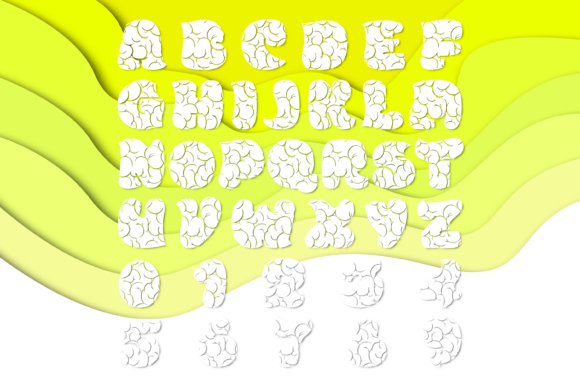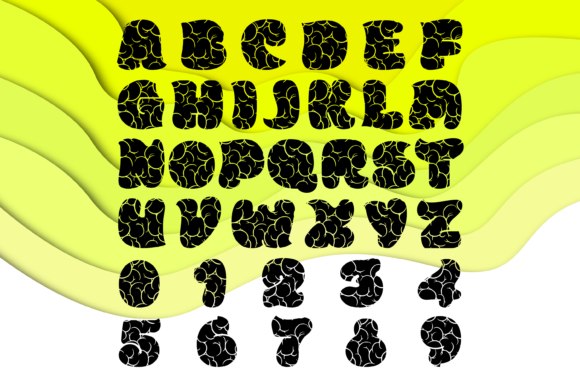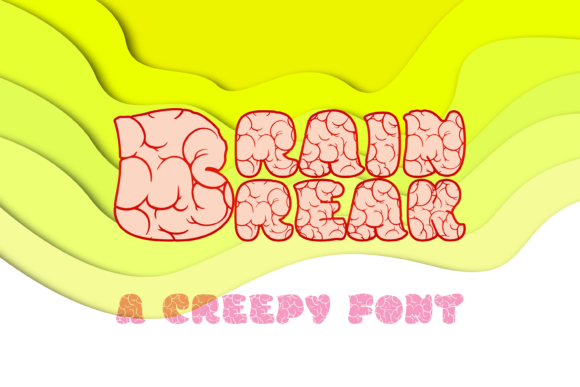
Brain Break Font: The Ultimate Addition to Your Halloween Designs
Are you looking for a way to make your Halloween designs stand out from the crowd? Look no further than the Brain Break Font, an incredibly cool and spooky decorative font that’s sure to add a touch of eeriness to any project. In this article, we’ll dive into the world of Brain Break Font and explore its features, benefits, and uses, as well as provide tips and inspiration for designers and crafters.
What is Brain Break Font?
Brain Break Font is a unique and eye-catching decorative font that’s perfect for Halloween-themed designs. Its spooky and playful style is sure to grab attention and add a touch of personality to any project. Whether you’re creating invitations, posters, or social media graphics, Brain Break Font is the perfect addition to make your designs stand out.
Features of Brain Break Font
Brain Break Font boasts a range of features that make it a must-have for designers and crafters. Some of its key features include:
- Unique and eye-catching design: Brain Break Font has a distinctive and quirky style that’s sure to grab attention.
- Spooky and playful style: Perfect for Halloween-themed designs, Brain Break Font adds a touch of eeriness and whimsy to any project.
- High-quality design: Brain Break Font is designed with high-quality graphics, ensuring that it looks great even at large sizes.
Benefits of Using Brain Break Font
So why should you use Brain Break Font in your designs? Here are just a few benefits:
- Adds a touch of personality: Brain Break Font is a unique and eye-catching font that adds a touch of personality to any project.
- Perfect for Halloween-themed designs: Brain Break Font is specifically designed for Halloween-themed designs, making it a must-have for any designer or crafter working on spooky projects.
- Increases engagement: The spooky and playful style of Brain Break Font is sure to grab attention and increase engagement with your audience.
- Easy to pair with other fonts: Brain Break Font is easy to pair with other fonts, making it versatile and easy to use in a range of design projects.
Using Brain Break Font in Your Designs
So how can you use Brain Break Font in your designs? Here are a few ideas to get you started:
- Halloween invitations: Add Brain Break Font to your Halloween invitations for a spooky and playful touch.
- Social media graphics: Use Brain Break Font to create eye-catching social media graphics that are sure to grab attention.
- Posters and flyers: Add Brain Break Font to your posters and flyers for a unique and eye-catching design.
- Craft projects: Brain Break Font is perfect for craft projects, such as making spooky signs or decorations.
Tips for Using Brain Break Font
Here are a few tips for using Brain Break Font in your designs:
- Use it sparingly: Brain Break Font is a bold and eye-catching font, so use it sparingly to avoid overwhelming your design.
- Pair it with other fonts: Brain Break Font is easy to pair with other fonts, so experiment with different combinations to find the perfect look for your design.
- Experiment with colors: Brain Break Font looks great in a range of colors, so experiment with different colors to find the perfect look for your design.
Inspiration for Using Brain Break Font
Need some inspiration for using Brain Break Font in your designs? Here are a few ideas to get you started:
- Create a spooky Halloween scene: Use Brain Break Font to create a spooky Halloween scene, complete with ghosts, bats, and jack-o-lanterns.
- Make a creepy craft project: Use Brain Break Font to make a creepy craft project, such as a spooky sign or decoration.
- Design a haunted house invitation: Use Brain Break Font to design a haunted house invitation that’s sure to grab attention.